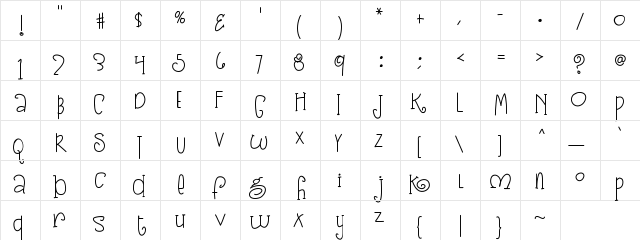
KB3SugarplumSwirls Medium
Design Context for KB3SugarplumSwirls Typeface
KB3SugarplumSwirls is built around its visual character rather than neutral utility — its distinctive forms are designed to make an impression at display sizes.
Font Pairing: Pair with a clean neutral sans-serif for body copy to let KB3SugarplumSwirls's character lead without overwhelming the composition.
Pro Tip: Use KB3SugarplumSwirls exclusively at display sizes — it was designed to be seen, not read at length. Let a neutral companion handle body copy.